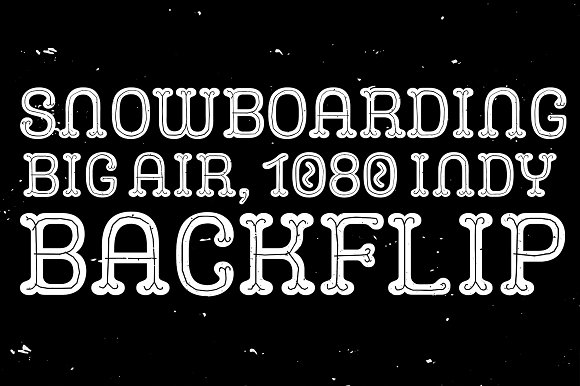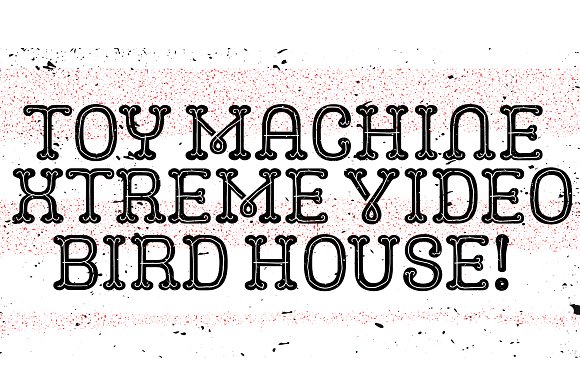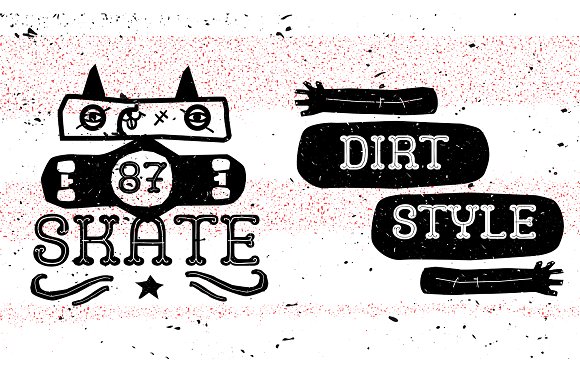
Camo Dirt Font: A Rustic Charm by Rodrigo Typo
Are you a designer or crafter looking for a unique and rustic font to add a touch of outdoor charm to your projects? Look no further than Camo Dirt, a distinctive font created by Rodrigo Typo. In this article, we’ll dive into the world of Camo Dirt, exploring its features, uses, and the creative mind behind its design.
The Birth of Camo Dirt
Camo Dirt is a handcrafted font, carefully designed by Rodrigo Typo to capture the essence of the great outdoors. The font’s creator, Rodrigo, is a passionate typographer with a keen eye for detail and a love for nature. With Camo Dirt, Rodrigo aimed to bring the rustic charm of the wilderness to the world of typography.
What Makes Camo Dirt Special?
Camo Dirt is more than just a font – it’s an experience. Its unique, distressed texture and rugged charm evoke the feeling of dirt roads, woodlands, and the great outdoors. The font’s design is characterized by:
- Distressed texture: Camo Dirt features a worn, rough texture that gives it a weathered, outdoor look.
- Rustic charm: The font’s rugged, handmade feel makes it perfect for projects that require a touch of country charm.
- High legibility: Despite its distressed texture, Camo Dirt remains highly legible, making it suitable for a wide range of applications.
Uses for Camo Dirt
Camo Dirt is an incredibly versatile font, suitable for a variety of projects, including:
- Outdoor and adventure branding: Use Camo Dirt to create logos, labels, and marketing materials for outdoor gear, apparel, and accessories.
- Crafting and DIY projects: Add a touch of rustic charm to your crafting and DIY projects, such as woodworking, sewing, or paper crafting.
- Graphic design: Incorporate Camo Dirt into your graphic design projects, including brochures, posters, and social media graphics.
- Wedding and event planning: Use Camo Dirt to create unique and memorable wedding and event stationery, such as invitations, menus, and signage.
Tips for Using Camo Dirt
To get the most out of Camo Dirt, follow these tips:
- Pair with complementary fonts: Combine Camo Dirt with clean, sans-serif fonts to create visual interest and contrast.
- Experiment with colors: Try pairing Camo Dirt with earthy tones, such as greens, browns, and tans, to enhance its outdoor feel.
- Use it sparingly: Camo Dirt is a bold font – use it sparingly to add emphasis and create visual hierarchy.
About Rodrigo Typo
Rodrigo Typo is a passionate typographer and designer with a love for creating unique and functional fonts. With a keen eye for detail and a deep understanding of typography, Rodrigo crafts fonts that are both beautiful and practical. Camo Dirt is just one example of his exceptional work.
Camo Dirt by Rodrigo Typo is a one-of-a-kind font that brings the rustic charm of the great outdoors to your designs. With its distressed texture, rugged charm, and high legibility, Camo Dirt is perfect for designers and crafters looking to add a touch of country charm to their projects. Whether you’re working on outdoor branding, crafting, or graphic design, Camo Dirt is sure to make your projects stand out.